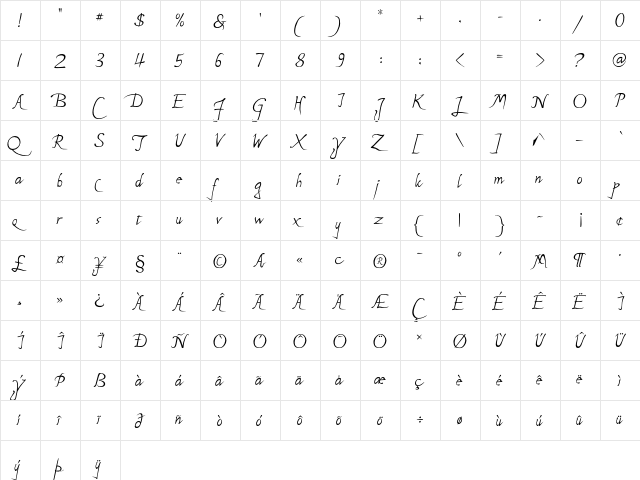
Michelangelo Regular
Design Context for Michelangelo Typeface
Michelangelo is a composed and adaptable typeface that performs quietly and consistently across a wide range of design contexts.